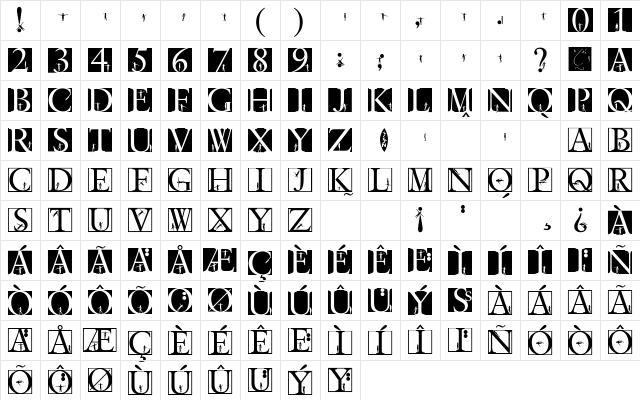
AIClassicalsBPlus Regular
Design Context for AIClassicalsBPlus
AIClassicalsBPlus wears its vintage influences proudly, with letterforms that recall mid-century signage, classic packaging, and nostalgia-driven design.
Font Pairing: Combine AIClassicalsBPlus with a simple slab or neutral sans - period-accurate companions reinforce the vintage feel without competing for attention.
Pro Tip: Lean into AIClassicalsBPlus's period character by pairing it with aged paper textures, muted colour palettes, and vintage illustration styles.